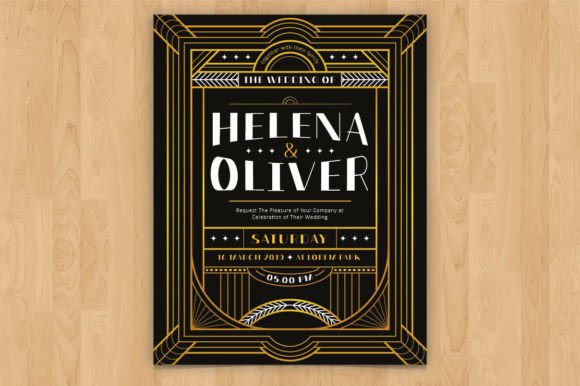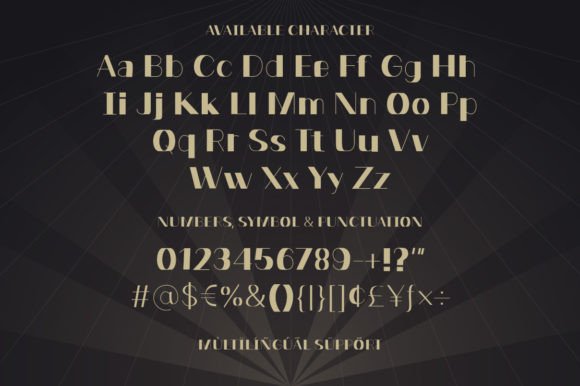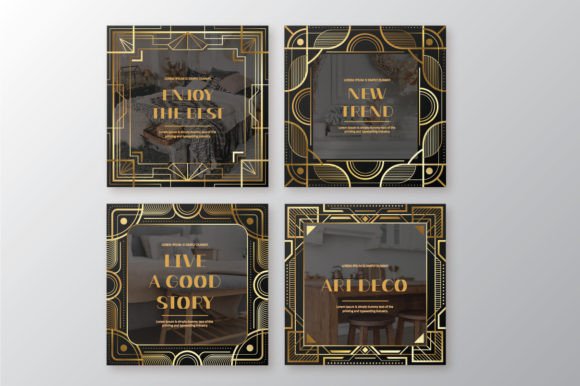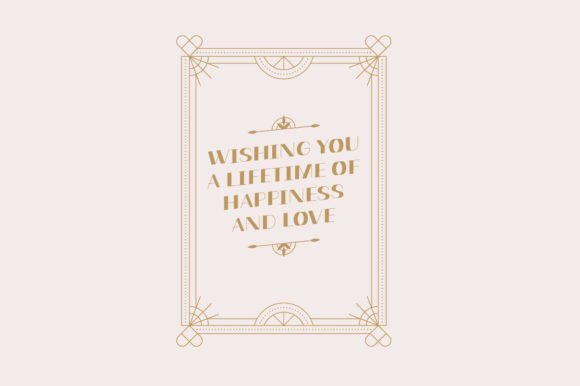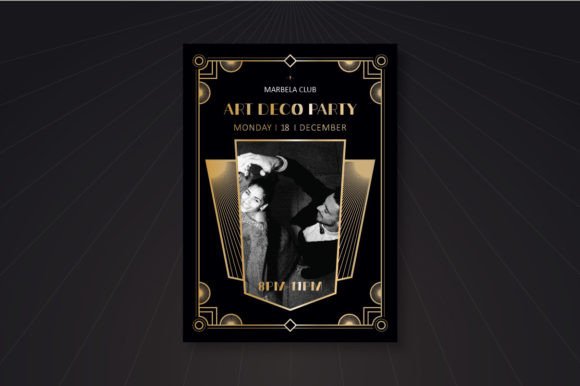
Introduction to Skinnybold Font
Have you ever stumbled upon the perfect font while working on a creative project, and it instantly elevates your entire design? For many designers, this moment is a game-changer. It’s the spark that ignites a new idea, a fresh perspective, and a dash of inspiration. For those who’ve experienced this thrill, we’re excited to introduce the Skinnybold Font – a stunning art deco font style with a handwritten feel that’s sure to become your go-to design resource.
Whether you’re working on a digital design project, crafting a unique greeting card, or creating a presentation with an art deco twist, the Skinnybold Font is a valuable addition to your design toolkit. With its high-quality aesthetic and versatility, this font is perfect for designers looking to add a touch of sophistication and elegance to their creative projects.
Key Features of Skinnybold Font
- High-quality, bold sans-serif font with a unique, modern design aesthetic
- Designed to be highly legible, even at small font sizes, making it perfect for use in digital and print media
- Perfect for use in logos, titles, and headings for creative projects, including web design, graphic design, and more
Honest Review: Skinnybold Font
I recently stumbled upon the Skinnybold Font, and I must say it’s been a game-changer for my creative projects. As a designer, I’m always on the lookout for high-quality design resources that can elevate my work. And let me tell you, this font delivers.
Here are some of the things I love about the Skinnybold Font: ✨
- Its unique, bold aesthetic makes it perfect for adding a touch of sophistication to any design.
- It’s incredibly versatile, making it suitable for a wide range of creative projects, from logos to brochures.
However, I do have a few minor complaints: ⚠️
- The font’s boldness can sometimes make it difficult to read at smaller font sizes.
Overall, I’m thoroughly impressed with the Skinnybold Font. It’s a fantastic addition to any designer’s toolkit, and I’d highly recommend it to anyone looking for a high-quality, versatile font for their creative projects.
For the best results, use the Skinnybold Font in conjunction with a transparent background to create a modern and sleek design. Experiment with different font sizes and colors to find the perfect balance for your project.
The Skinnybold Font is ideal for use in a variety of creative projects, including social media graphics, business cards, and marketing materials. Its high-quality design and transparent background make it a versatile and valuable design resource.